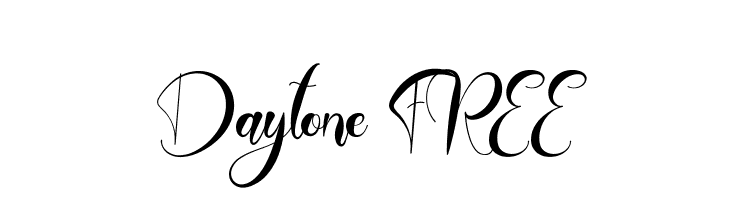
An elegant, flowing script font with intricate, decorative letterforms.
An elegant script font with fluid, cursive strokes and artistic flair.
A playful and elegant script font with flowing, cursive letterforms.
An elegant, flowing script font with a handwritten style.